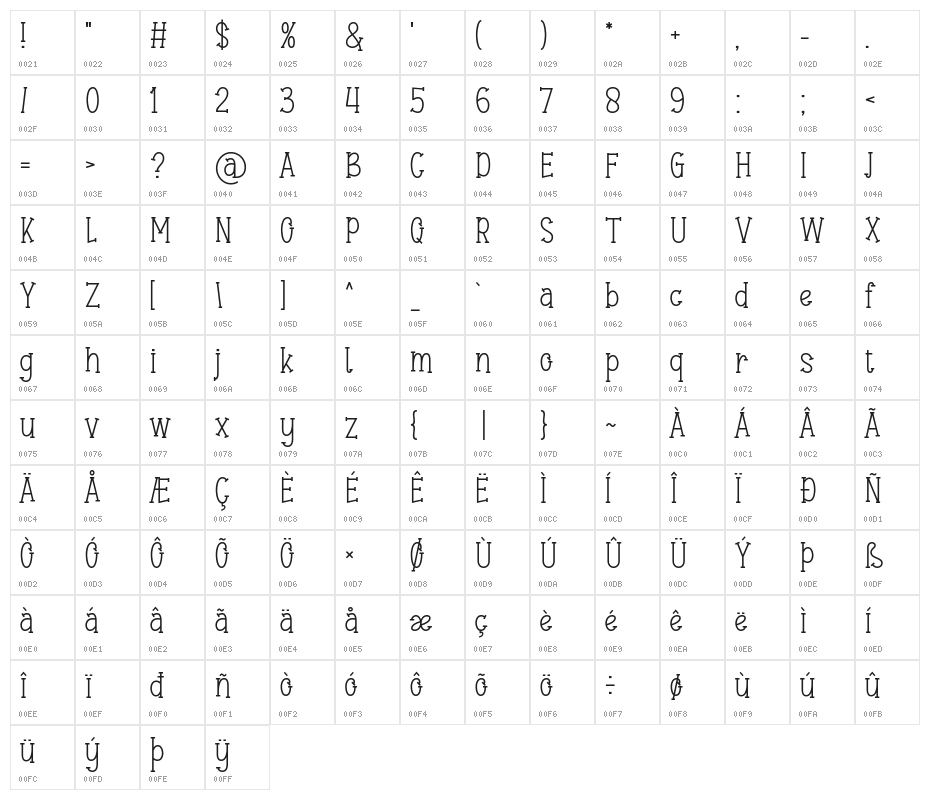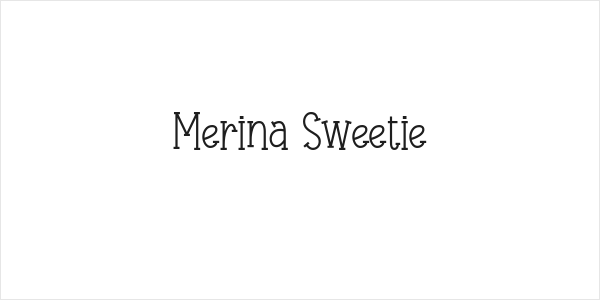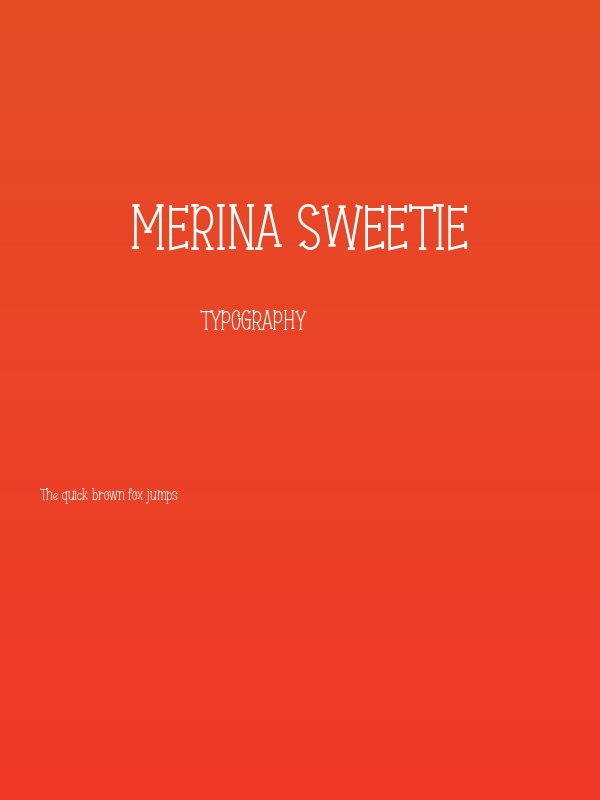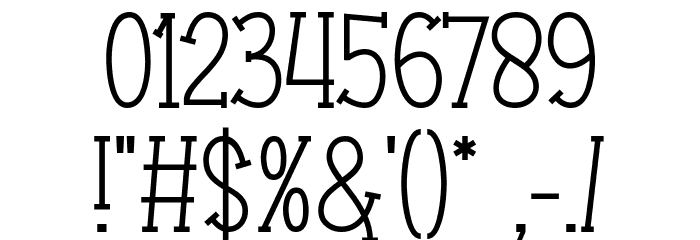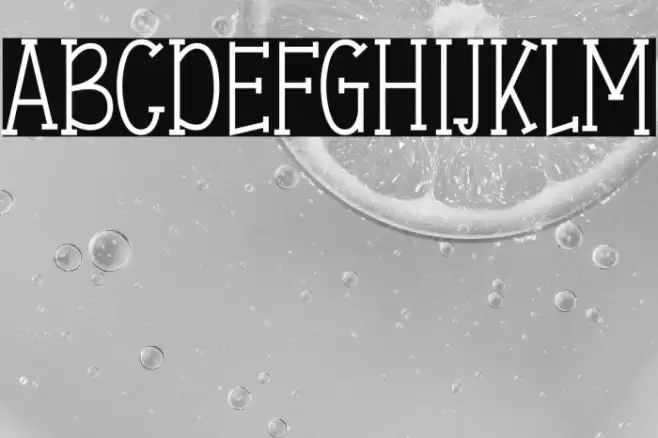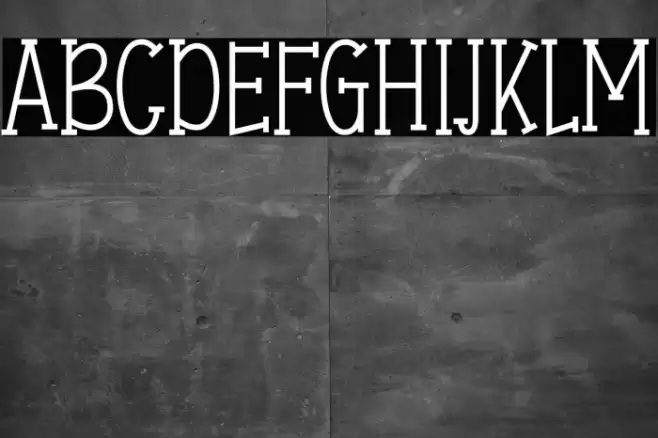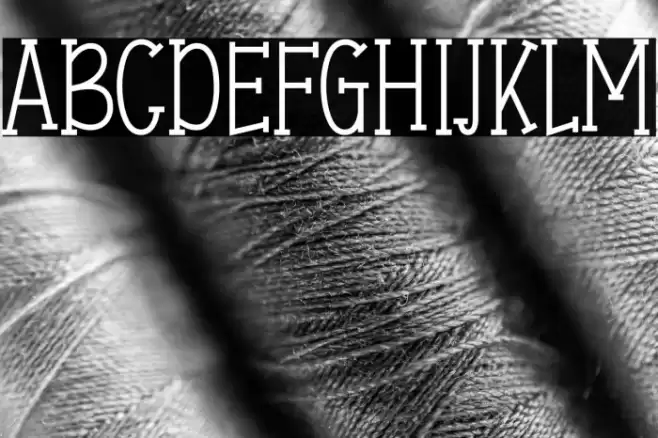
Merina Sweetie Font
Merina Sweetie Description
This font features a playful and whimsical design with a touch of elegance. The characters are tall and slender, with a slight curve that adds a sense of movement and fluidity. The uppercase letters are distinct with a unique flair, while the lowercase letters maintain a consistent style that complements the overall aesthetic. The numbers are clear and easy to read, and the special characters are designed to blend seamlessly with the rest of the font. This font's style is both modern and classic, making it versatile for various design needs.
| Overall Style | Whimsical and Elegant |
| Use Case | Headlines, Invitations, Branding |
| Proposed Projects | Ideal for children's books, playful branding, invitations, and creative posters. |